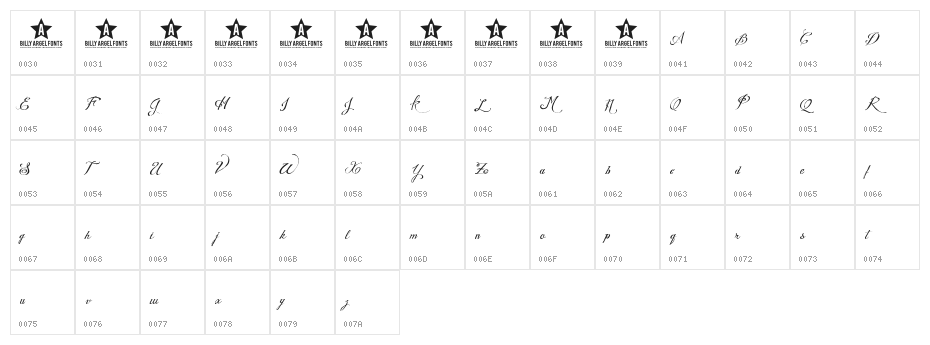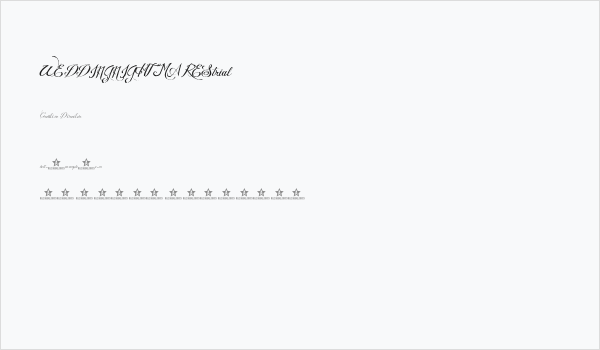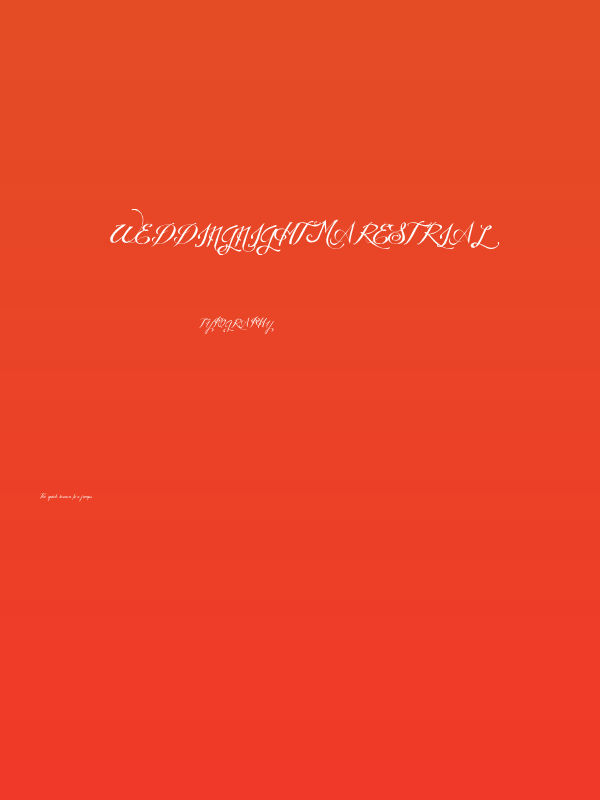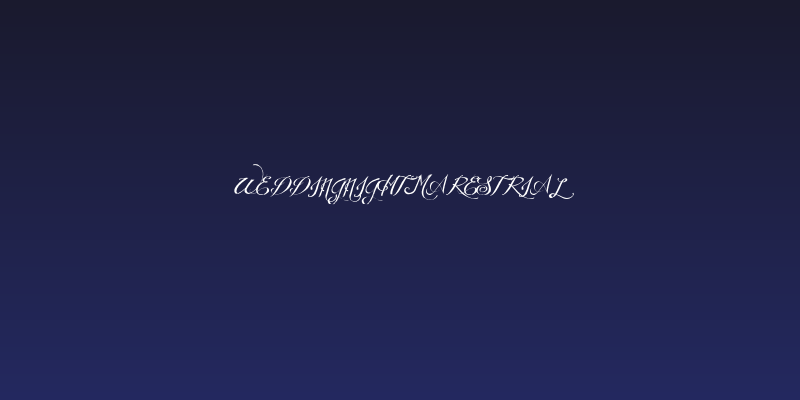
WEDDINGNIGHTMAREStrial Font
WEDDINGNIGHTMAREStrial Description
This font features an elegant and intricate script style, characterized by its flowing, cursive letterforms. The uppercase letters are particularly ornate, with elaborate swashes and flourishes that give them a decorative, almost calligraphic appearance. The lowercase letters maintain a consistent style, with a slightly more restrained design that complements the uppercase characters. The font's overall aesthetic is sophisticated and romantic, making it ideal for formal occasions. The special characters, while not shown, are likely to follow the same decorative theme, enhancing the font's versatility.
| Use Case | Headlines, Invitations, Logos |
| Proposed Projects | Ideal for wedding invitations, event branding, elegant logos, and high-end product packaging. |